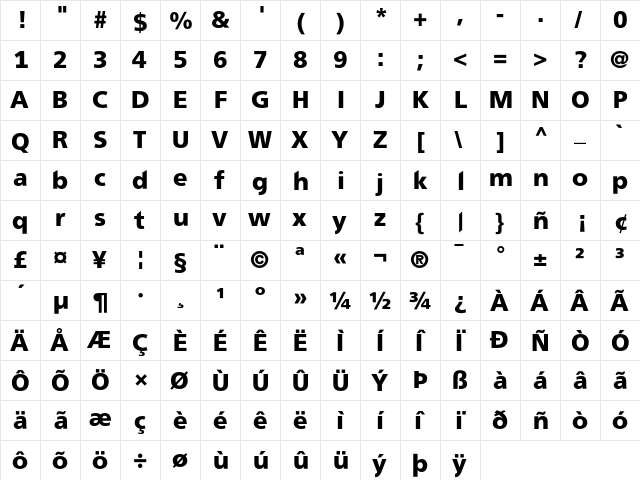
FreewayBlack Regular Font Preview
FreewayBlack Regular
Design Context for FreewayBlack Typeface
FreewayBlack offers clean, dependable letterforms without strong stylistic allegiance, making it a practical choice for designers who need flexibility.